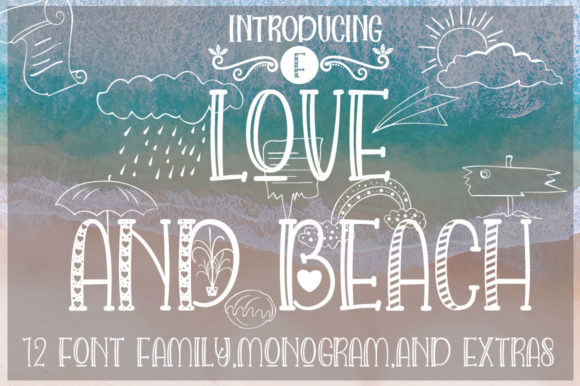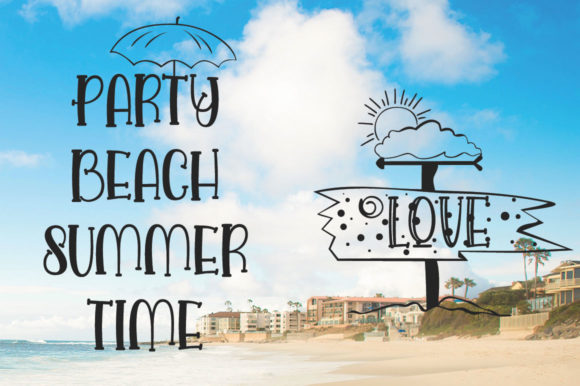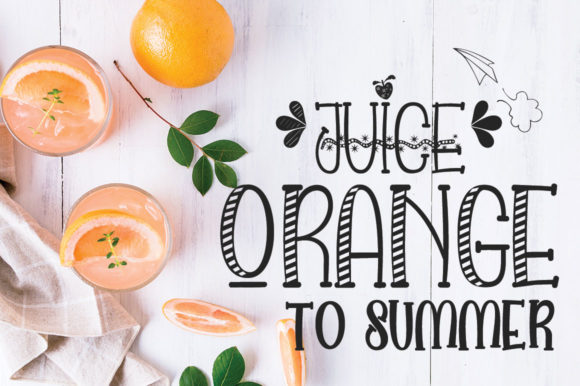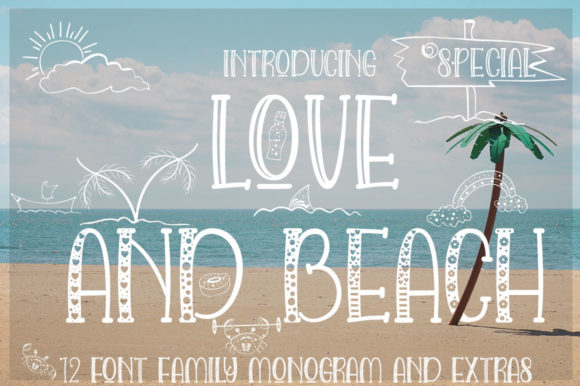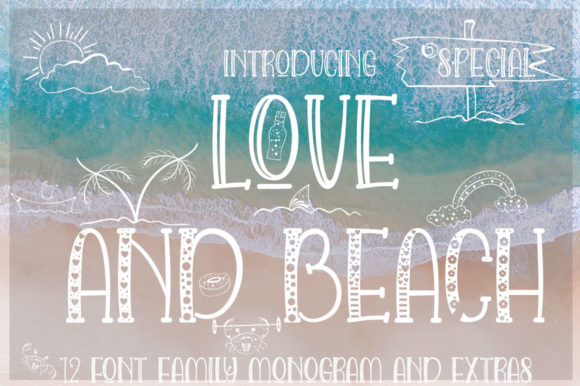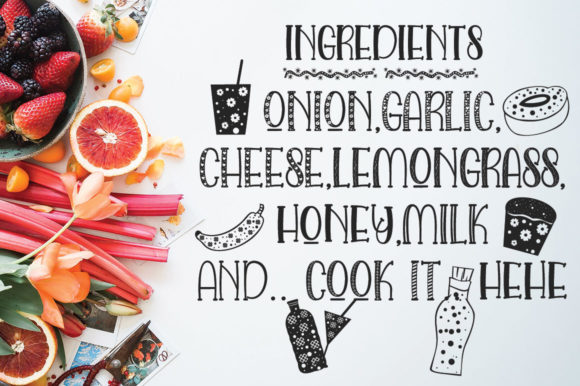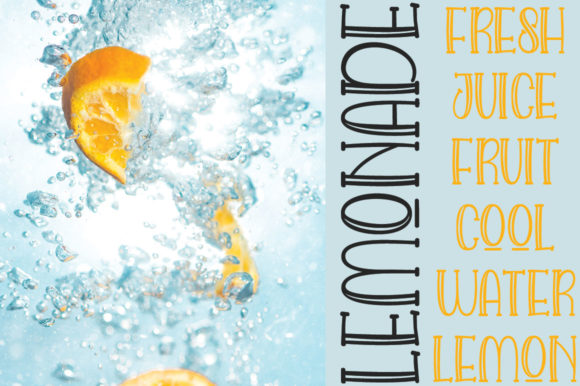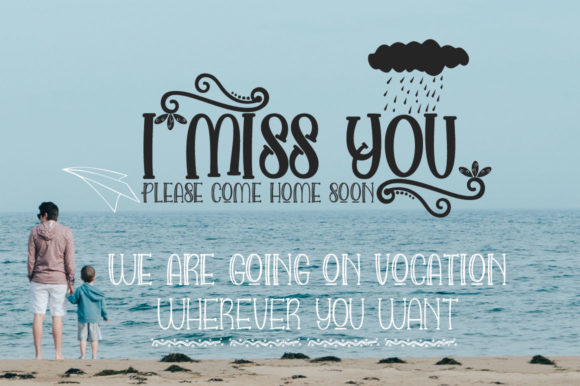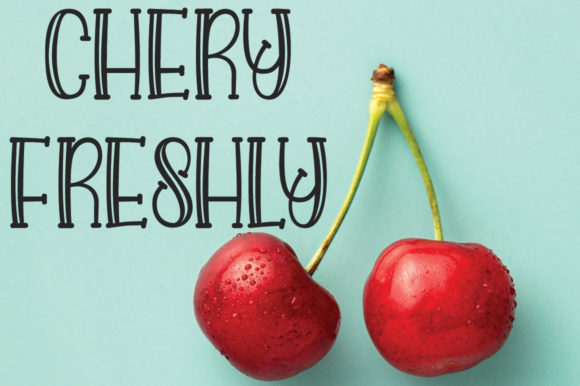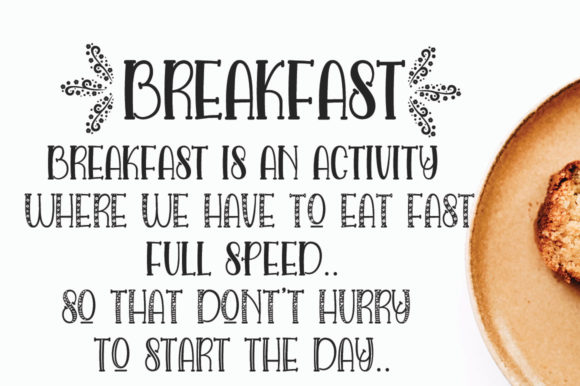
Love and Beach Font
About Love and Beach Font
Love and Beach is a beautiful and charming handwritten font with a stunning feel! Use it to turn any design idea into a romantic and authentic standout!